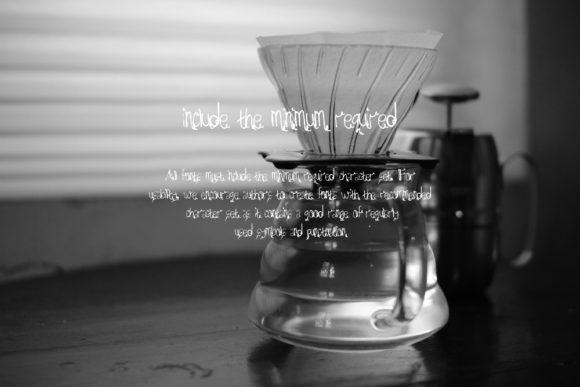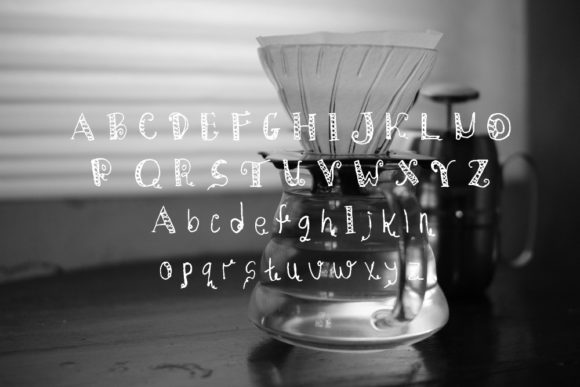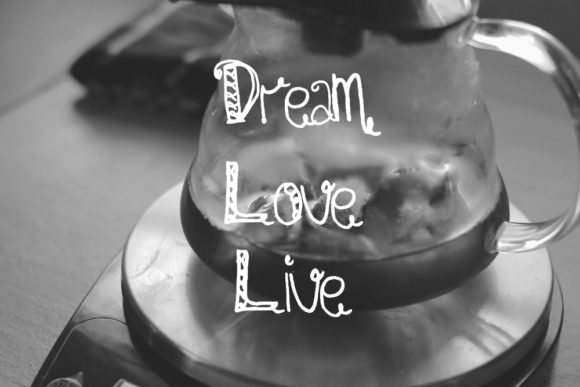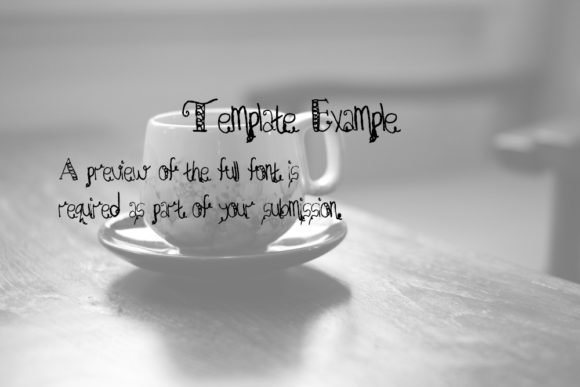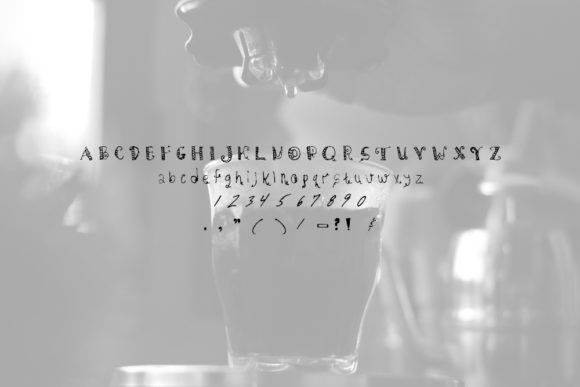
The Aprillian Springs Font: A Fun Display Font to Elevate Your Designs
I’ll never forget the time I was working on a whimsical craft project for a client, and I just couldn’t find the right font to bring the design to life. The project required a playful, enchanting typeface that would make the creative idea stand out. That’s when I stumbled upon the Aprillian Springs font, and it instantly became the perfect fit. In this article, I’ll share my experience with this fun display font, its features, and how to make the most of it in your designs.
A Personal Review of Aprillian Springs
As a designer, I’m always on the lookout for fonts that can add a touch of magic to my projects. Here’s what I love about Aprillian Springs:
- ✨ Unique and playful design that’s perfect for creative projects
- ✅ Highly legible, even at larger font sizes
- 💫 Enchanting and whimsical feel that’s sure to capture attention
While Aprillian Springs is an excellent font, it’s not without its quirks. Here are a few things to keep in mind:
- 🤔 Limited use for body text due to its display font nature
- ⚠️ May not be suitable for formal or professional projects
- Take advantage of OpenType features, glyphs, and stylistic alternates to add more creativity to your design.
The Backstory of Aprillian Springs
Aprillian Springs was designed by a team of creatives who wanted to create a font that would bring a touch of magic to designs. Inspired by the beauty of nature and the whimsy of fantasy, Aprillian Springs is a unique and enchanting typeface that’s perfect for creative projects.
| What type of font is Aprillian Springs? | Aprillian Springs is a fun display font perfect for creative projects. |
| Is Aprillian Springs a script font? | No, Aprillian Springs is not a script font. It’s a unique and playful display font with its own distinct character. |